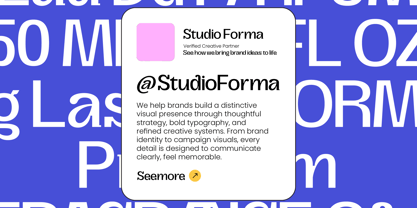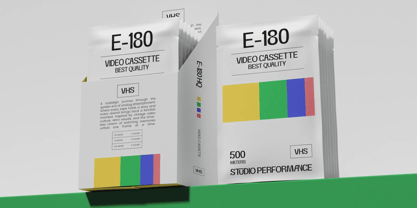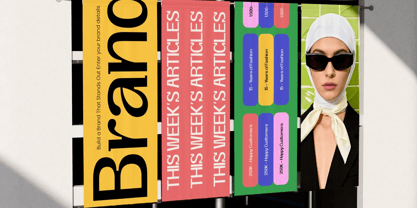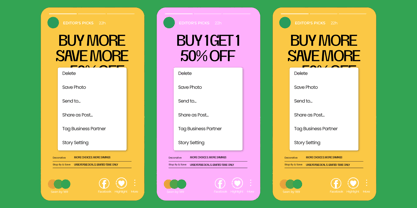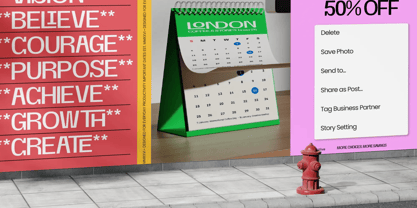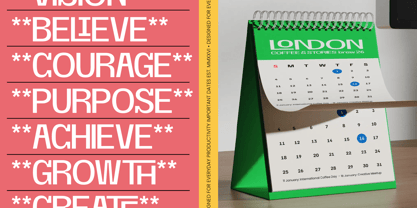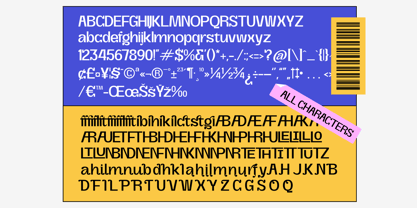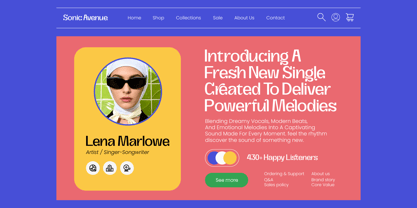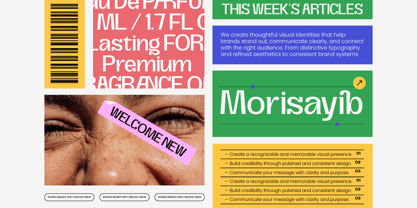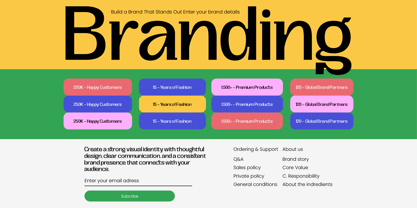
Morisayib
A família de fontes Morisayib foi desenhada por Heru Utama Putra e publicada pela Timelesstype Studio. Morisayib contém 2 estilos e opções de pacote familiar. Saiba mais sobre esta família
Elevate your design projects with a sophisticated touch that merges contemporary minimalism with timeless elegance. Morisayib - Modern Editorial Sans is a high-contrast sans serif designed to bring a premium aesthetic to any creative endeavor. Its refined letterforms and geometric precision offer a clean, professional look that ensures your message is delivered with maximum clarity and style.
Experience unparalleled flexibility across every platform while maintaining a cohesive brand voice. With its extensive multilingual support, Morisayib - Modern Editorial Sans adapts seamlessly across global markets, making it incredibly versatile for international projects. This dynamic typeface includes a variety of unique ligatures and stylistic alternates, allowing designers to craft bespoke layouts that truly stand out in a crowded marketplace.